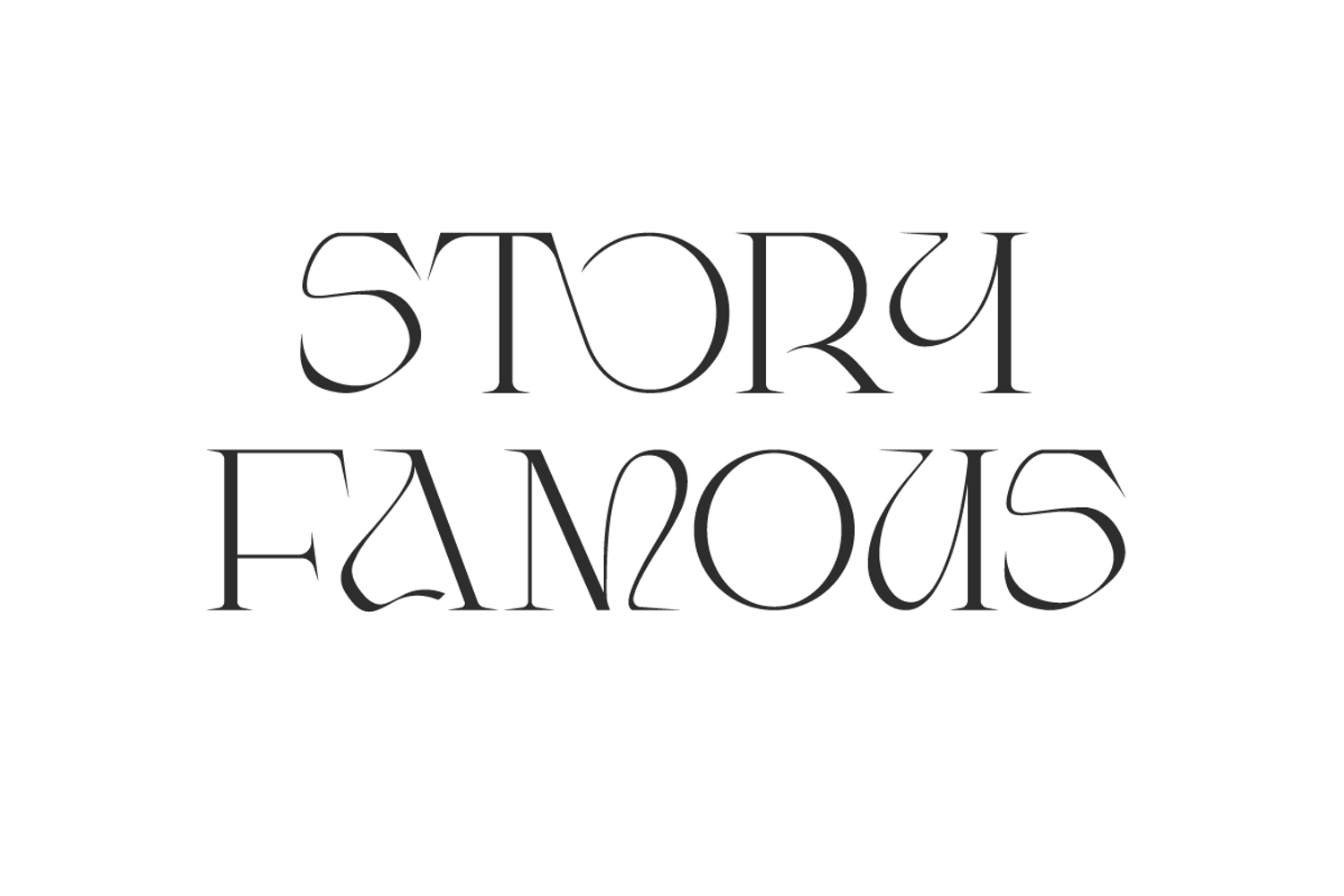
Story Famous Font
Story Famous Font is an elegant serif display font with a modern style that gives a luxurious and unique impression. This awesome font is perfect for brochure, catalogs, cover, headers, heading, invitation, label, logos, mockup, poster, template, title, web design, and so much more.
Story Famous Font contains a complete set of basic Uppercase and Lowercase characters, Numbers, Symbols, Punctuation and Ligature. This font is designed to exude beauty and allure in every curve. Inspired by the glamour of high fashion and the sophistication of contemporary design, it delivers a luxurious and refined aesthetic. This font is a top choice for bridal boutique, cosmetic, fashion, home furniture, skincare, spa salon, wedding organizer, and more.